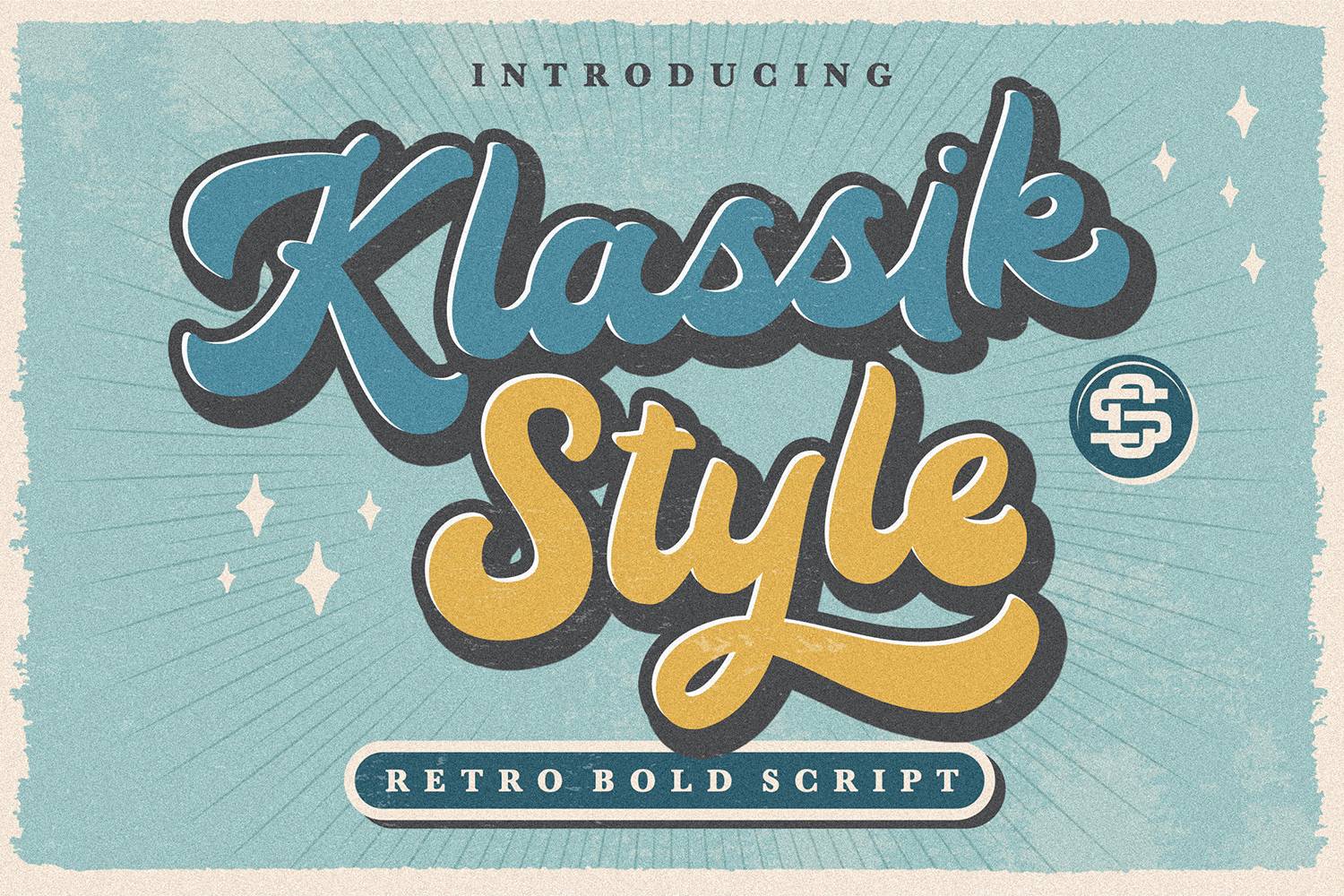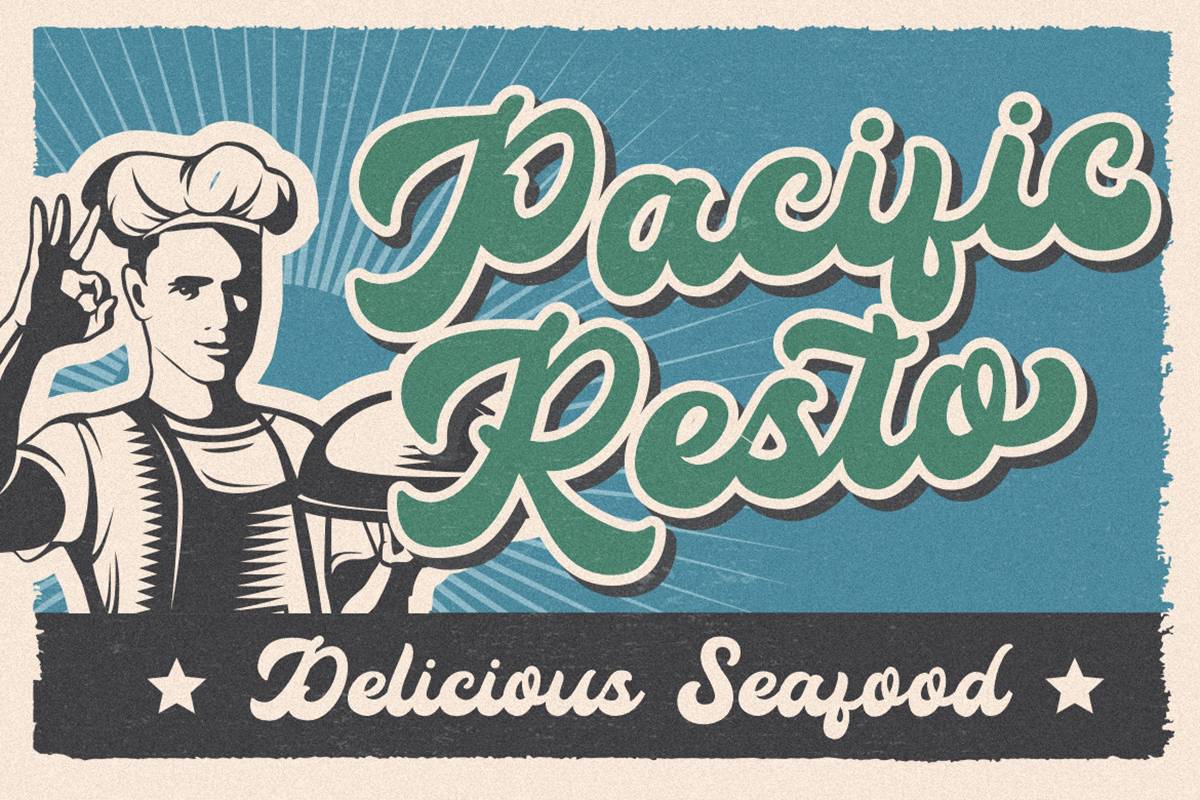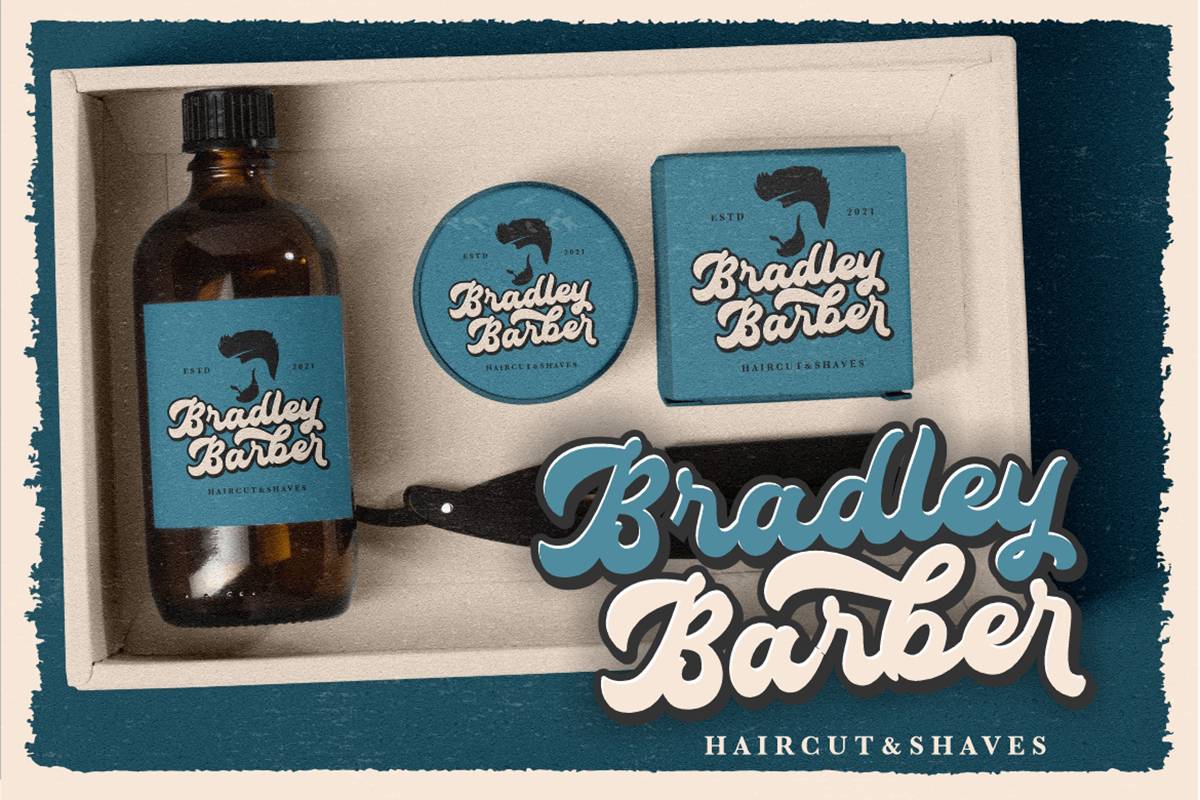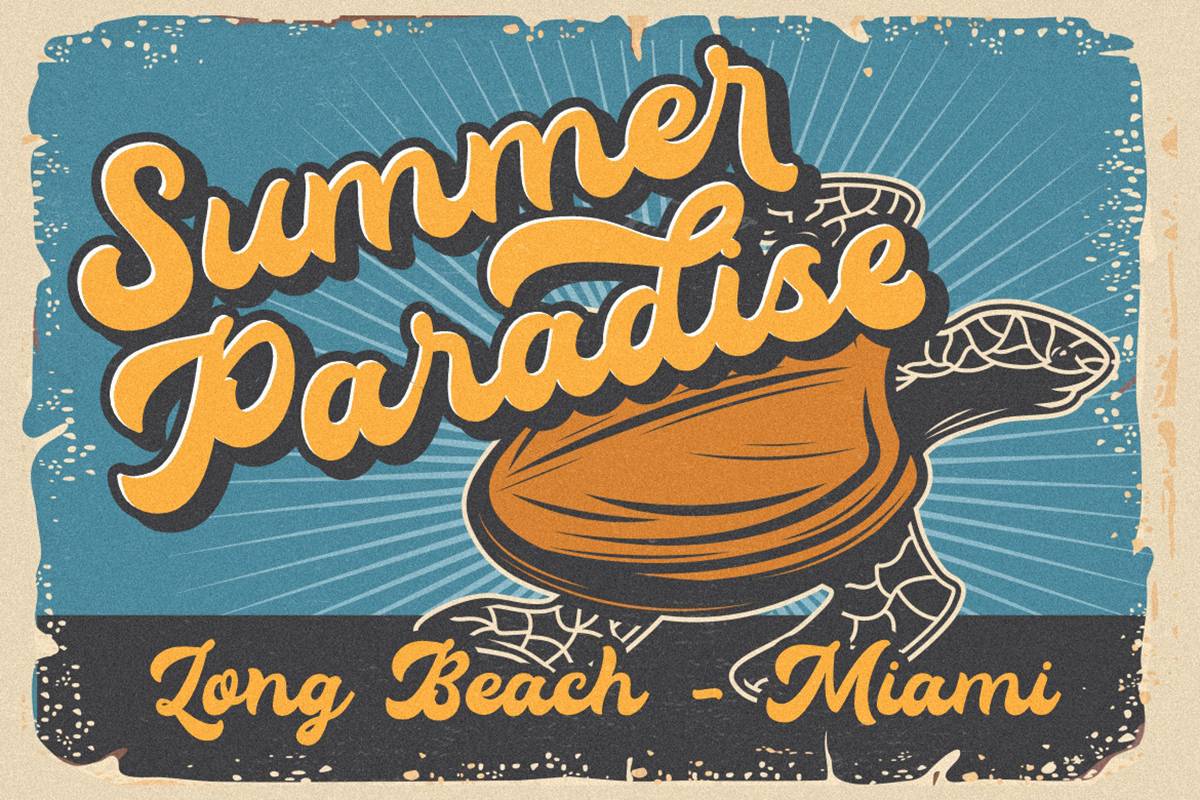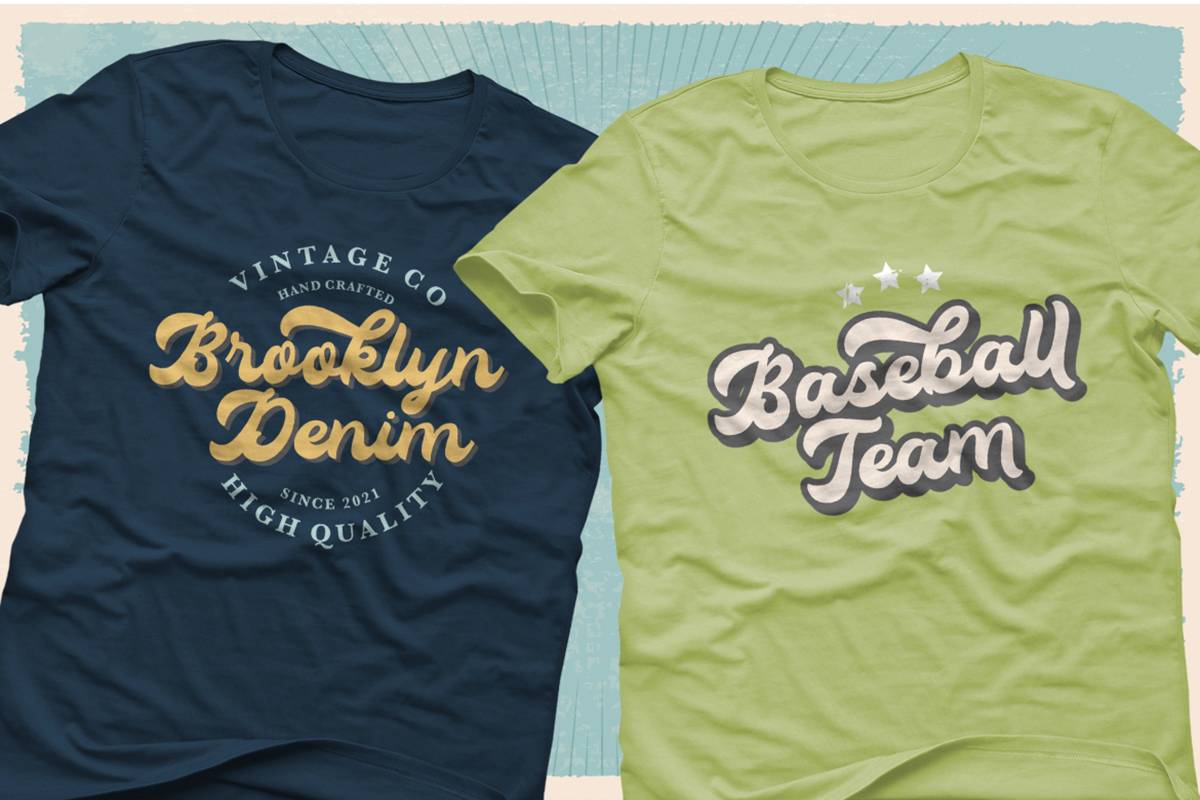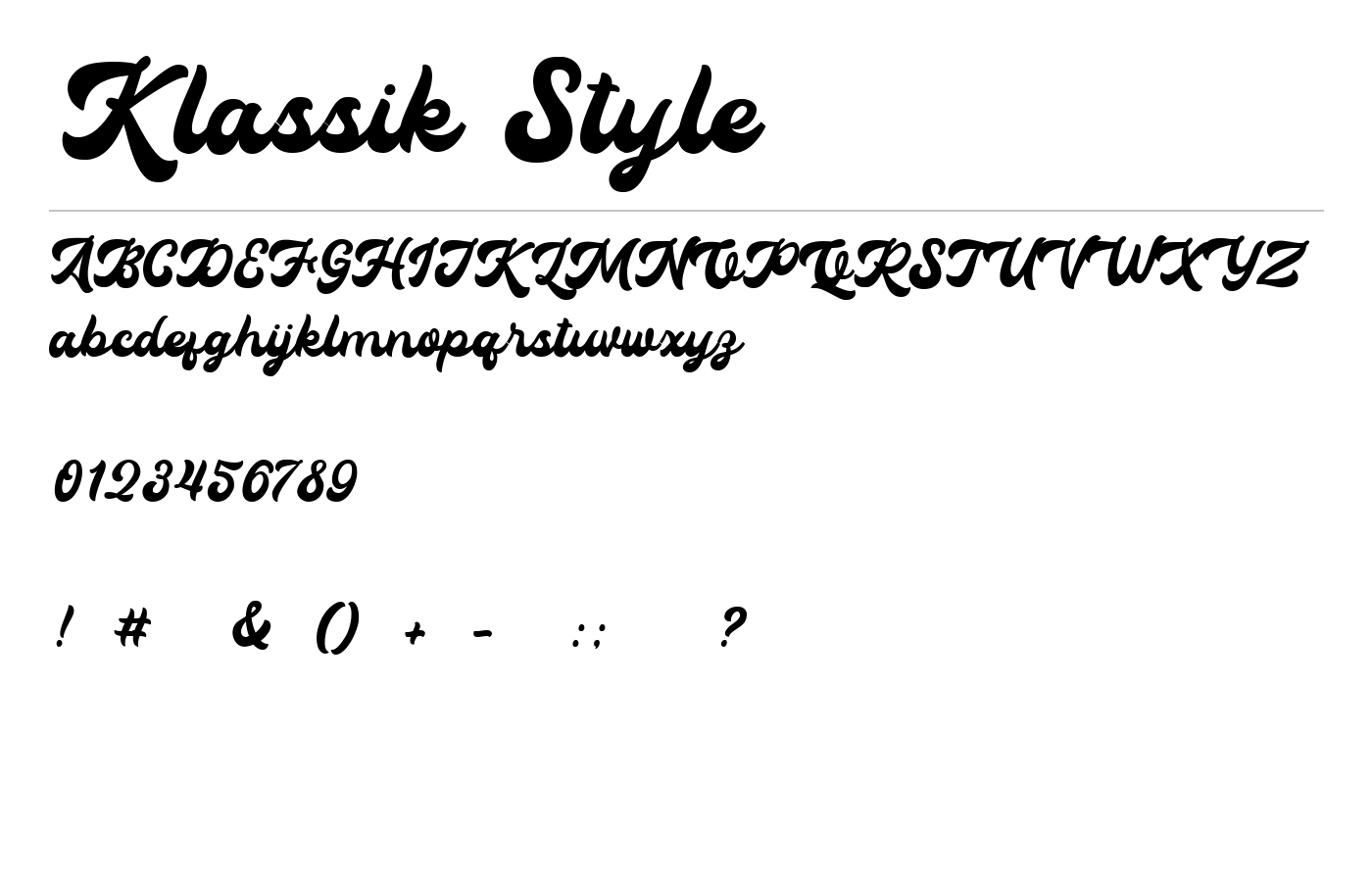
Klassik Style is a bold script font characterized by its smooth, flowing strokes and a slightly vintage charm. It features high contrast with thick and thin lines that give it a playful yet elegant personality, making it ideal for branding, packaging, and headings where a stylish, retro feel is desired. This font works well in settings that need a warm, approachable aesthetic with a hint of sophistication.
Klassik Style Font
About Klassik Style Font
| Font family | Klassik Style Font |